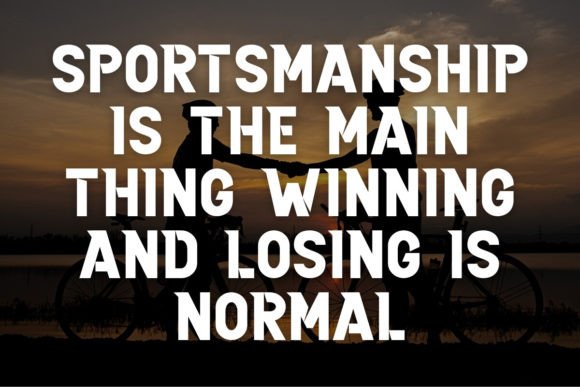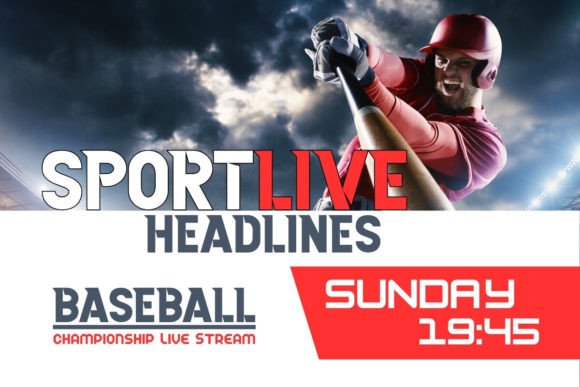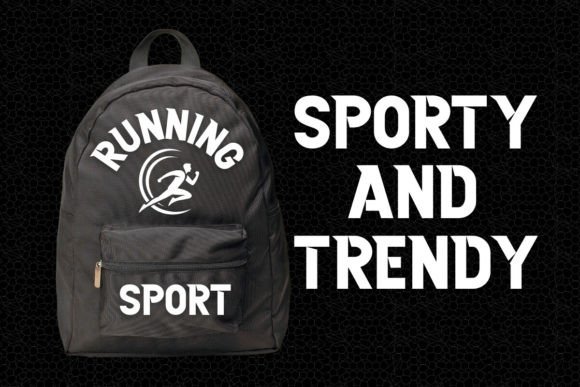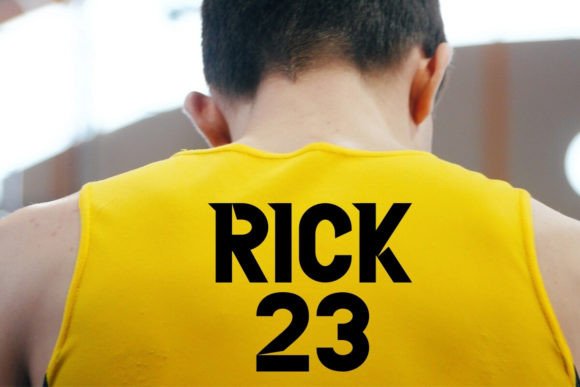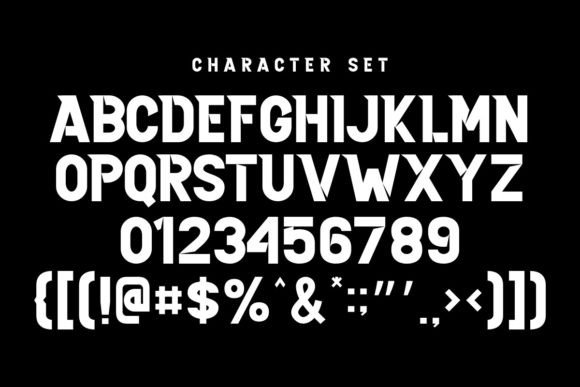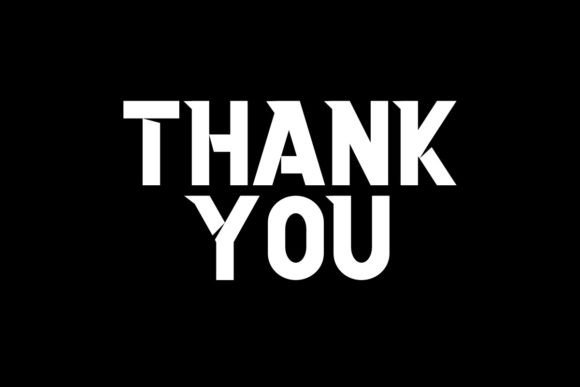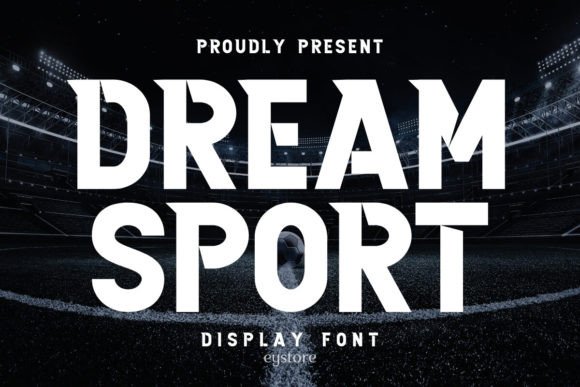
Dream Sport Font: The Ultimate Choice for Fun and Bold Designs
Are you a designer, crafter, or DIY enthusiast looking for a font that can add a touch of excitement and personality to your projects? Look no further than the Dream Sport font! This fun and bold display font is perfect for a wide range of applications, from crafts and digital designs to presentations and greeting cards.
What Makes Dream Sport Font So Special?
Dream Sport font is a unique and eye-catching typeface that is sure to grab attention. Its bold and playful design makes it perfect for creating fun and engaging visuals that can be used for various purposes. Whether you’re creating a logo, poster, or social media graphic, this font is sure to make your design stand out.
One of the best things about Dream Sport font is its versatility. It can be used for a wide range of projects, including:
- Crafts: Use Dream Sport font to add a personal touch to your handmade crafts, such as scrapbook pages, cards, and gift tags.
- Digital designs: Add a bold and playful touch to your digital designs, such as social media graphics, blog posts, and website headers.
- Presentations: Use Dream Sport font to create engaging and attention-grabbing presentations that will leave a lasting impression on your audience.
- Greeting cards: Create personalized and fun greeting cards for special occasions, such as birthdays, holidays, and weddings.
Why Designers and Crafters Love Dream Sport Font
Designers and crafters love Dream Sport font for many reasons. Here are a few:
- Easy to read: Despite its bold design, Dream Sport font is easy to read, making it perfect for creating visual content that needs to be understood quickly.
- Highly customizable: Dream Sport font can be customized to fit your design needs, allowing you to adjust the size, color, and style to match your brand or project’s aesthetic.
- Unique and creative: Dream Sport font has a unique and creative design that can add a touch of personality to your projects, setting them apart from others.
Tips for Using Dream Sport Font
Here are some tips for using Dream Sport font in your designs:
- Use it sparingly: While Dream Sport font is bold and eye-catching, it can be overwhelming if used excessively. Use it sparingly to add emphasis and create visual interest.
- Pair it with other fonts: Dream Sport font can be paired with other fonts to create a unique and visually appealing design. Experiment with different font combinations to find the perfect match.
- Experiment with colors: Dream Sport font can be used in a variety of colors to match your brand or project’s aesthetic. Experiment with different colors to find the one that works best for your design.
Dream Sport font is a fun and bold display font that is perfect for designers, crafters, and DIY enthusiasts. Its versatility, ease of use, and unique design make it an excellent choice for a wide range of projects. Whether you’re creating crafts, digital designs, presentations, or greeting cards, Dream Sport font has the potential to become your favorite font. So why wait? Give Dream Sport font a try today and add a touch of excitement and personality to your designs!